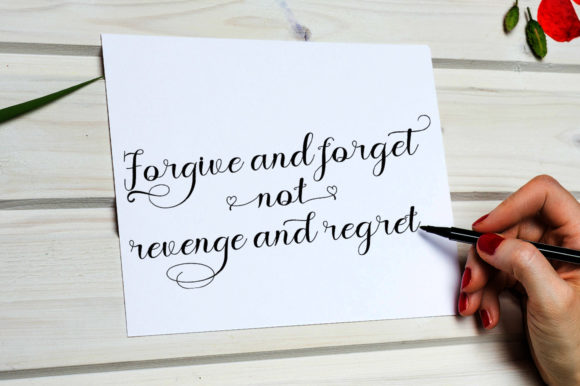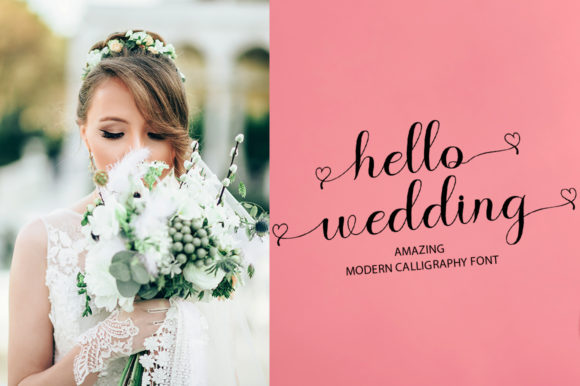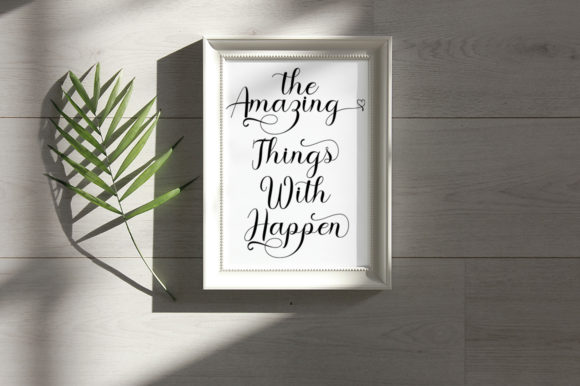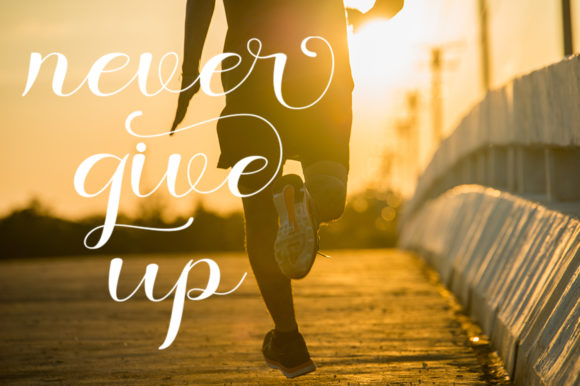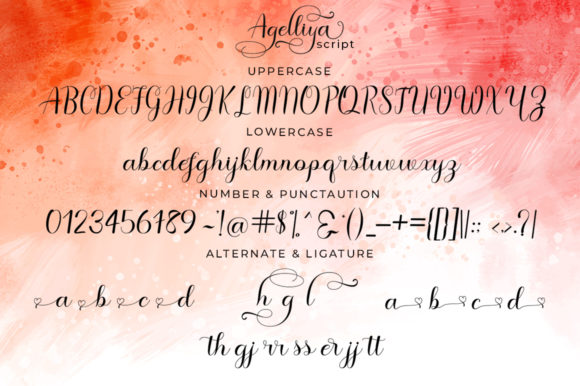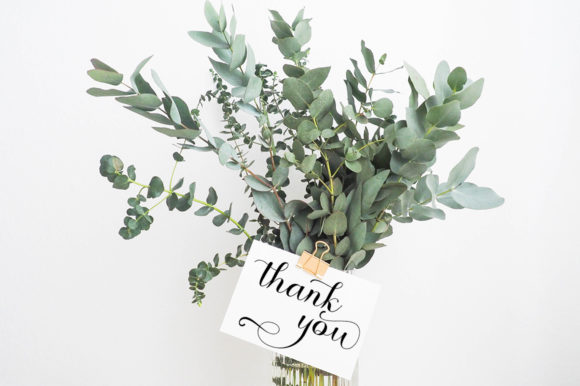
Introducing Agelliya Font: A Playful, Dynamic, and Elegant Script Font
Are you tired of using the same old fonts in your designs? Look no further than Agelliya Font, a versatile script font that is sure to add a touch of magic to your next project. With its playful, dynamic, and elegant style, Agelliya is perfect for a wide range of applications, from calligraphy art to headlines and quotes.
What Makes Agelliya Font So Special?
Agelliya Font is a standout in the world of typography, offering a unique blend of playfulness and sophistication. Its elegant lines and curves make it perfect for designs that require a touch of refinement, while its playful nature ensures that it will add a dash of whimsy to any project. Whether you’re working on a logo, a poster, or a social media graphic, Agelliya is sure to make your design stand out.
A Font with Endless Possibilities
One of the things that sets Agelliya apart from other script fonts is its incredible versatility. With a wide range of applications, Agelliya can be used for everything from:
• Calligraphy art: Agelliya’s elegant lines and curves make it perfect for creating beautiful calligraphy pieces.
• Headlines and quotes: Add a touch of sophistication to your headlines and quotes with Agelliya’s dynamic and playful style.
• Logos and branding: Use Agelliya to create a unique and memorable logo that will set your brand apart.
• Social media graphics: Add a dash of whimsy to your social media graphics with Agelliya’s playful style.
Special Features to Enhance Your Designs
Agelliya Font also features a wealth of special features, including:
• Alternate glyphs: Add some extra flair to your designs with Agelliya’s alternate glyphs.
• Ligatures: Use Agelliya’s ligatures to create beautiful, flowing connections between letters.
• Swashes: Add a touch of drama and elegance to your designs with Agelliya’s swashes.
Why Choose Agelliya Font?
With so many fonts on the market, it can be hard to choose the right one for your design. Here are just a few reasons why Agelliya Font stands out:
• Unique and elegant style: Agelliya’s playful, dynamic, and elegant style is sure to make your designs stand out.
• Versatility: Agelliya can be used for a wide range of applications, from calligraphy art to headlines and quotes.
• High-quality: Agelliya is a high-quality font, designed to deliver exceptional results in your designs.
Get Creative with Agelliya Font
In conclusion, Agelliya Font is a versatile and elegant script font that is perfect for designers and crafters looking to add a touch of whimsy and sophistication to their designs. With its PUA encoding, special features, and wide range of applications, Agelliya is sure to become a go-to font in your design arsenal.